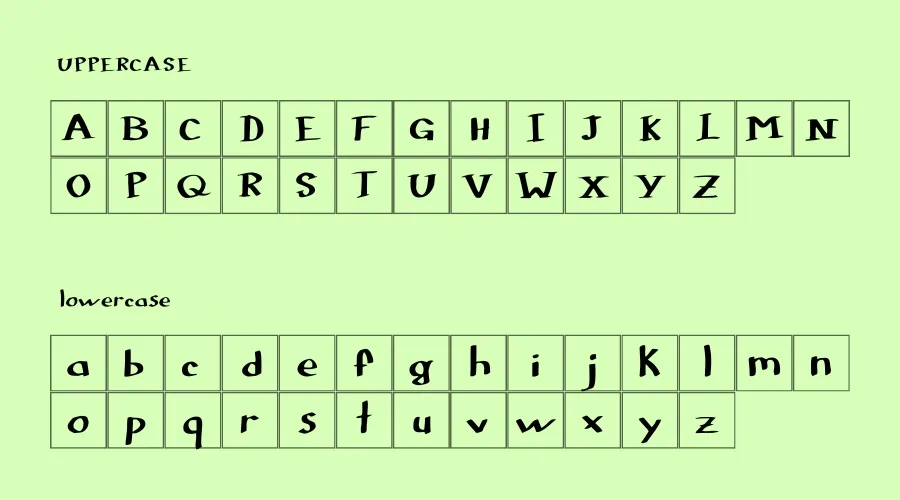
About Colophon Dbz Font
Colophon Dbz Font is designed by Divide by Zero it is a fancy text style. This is a lovely typeface with over a hundred characters, including punctuation, numerals, icons, and uppercase letters. TTF and OTF files are available here.
The characters are clear and simple to read, even in small sizes. You may utilize this stunning texture with pencil box font and create elegant projects. The characters of this style are moreover unique, and ideal for body text.
Your content will get a nice look with this font. Because of its stylish glyphs, it is perfect for a wide range of designs. As well as being perfect use for food naming designs, this font is also suitable for logo designing.